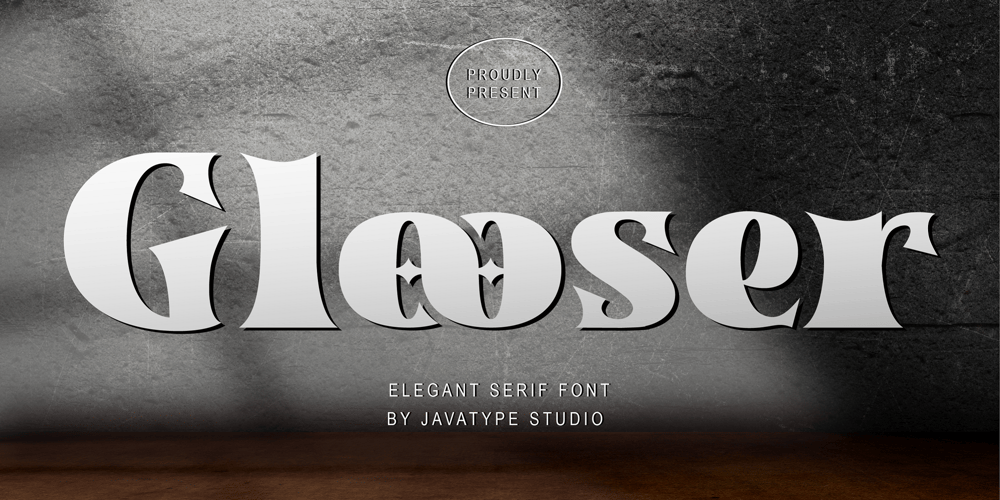
Glooser
Glooser font
Glooser Font Family was designed by Tio Yulianto and published by Javatypestd. Glooser contains 1 styles and family package options. Introducing Glooser a elegant Serif Font Inspired from modern style combine with bold typography style. Come with open type feature with a lot of alternates and end swash, its help you to make great lettering.